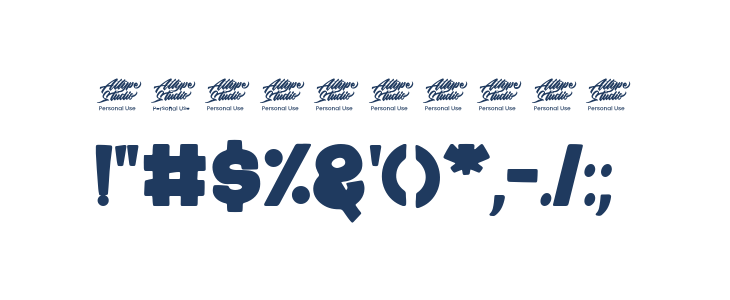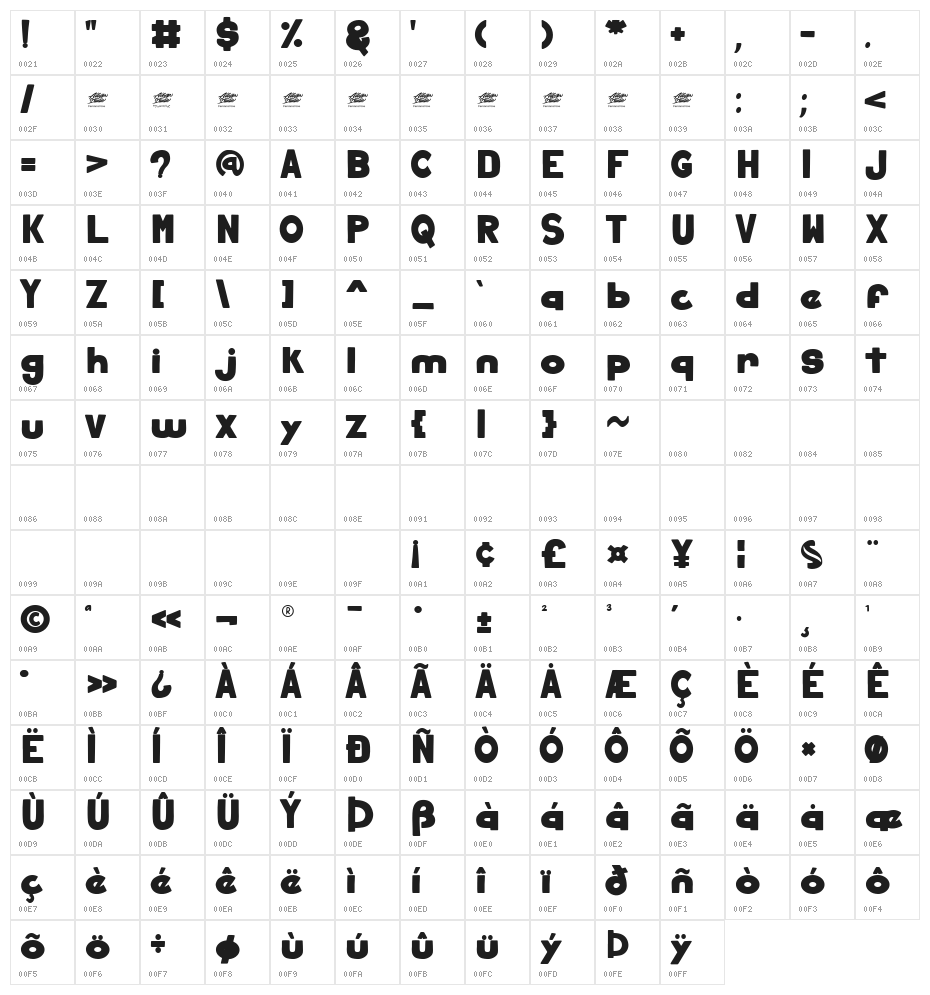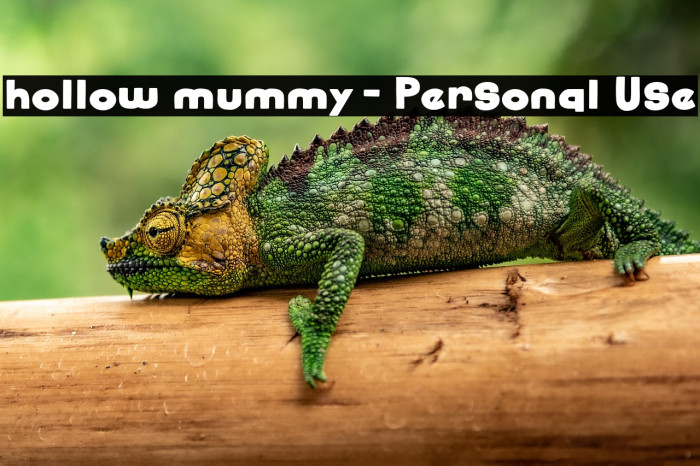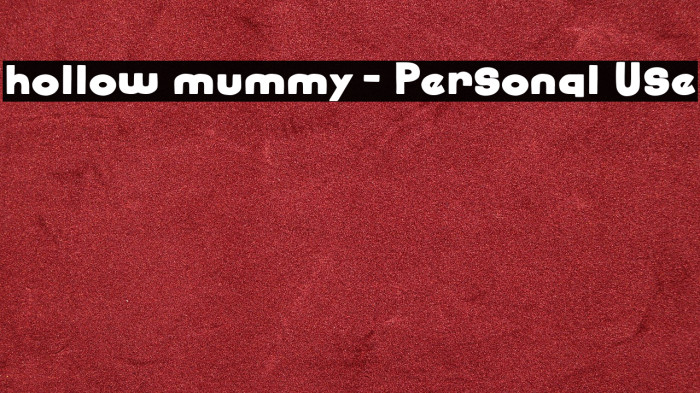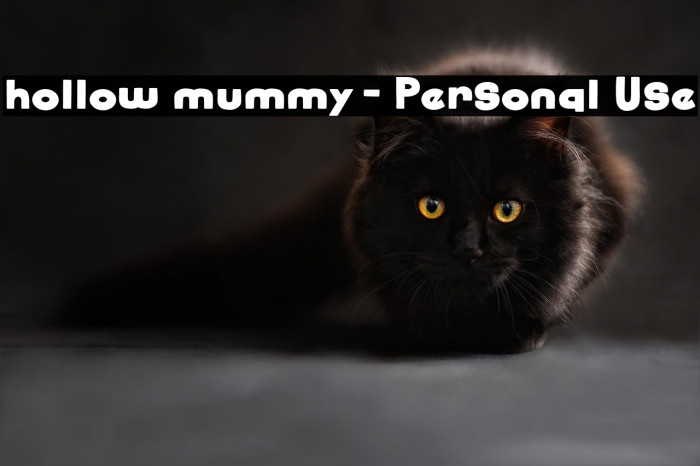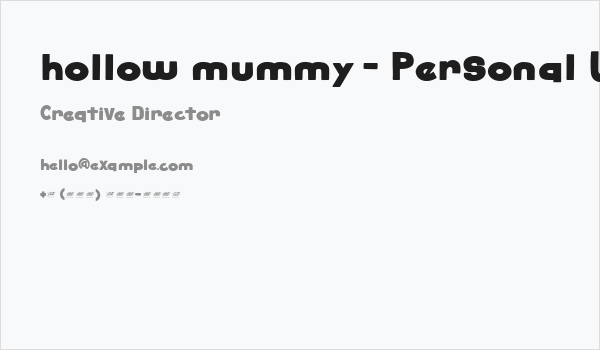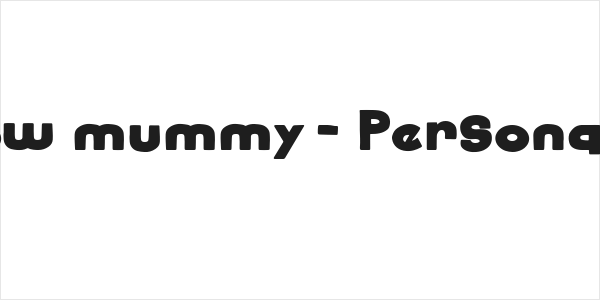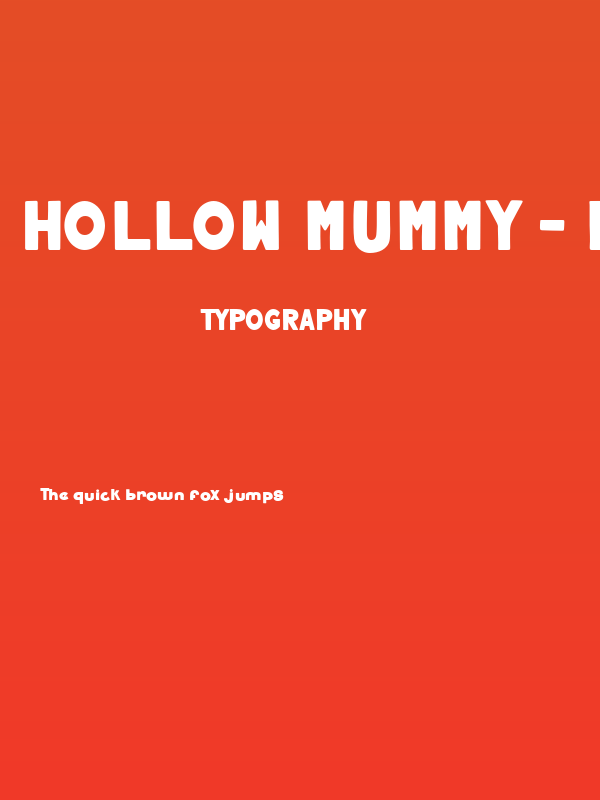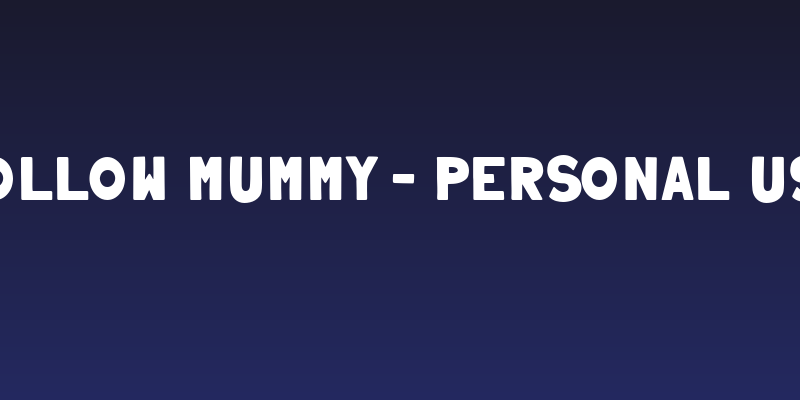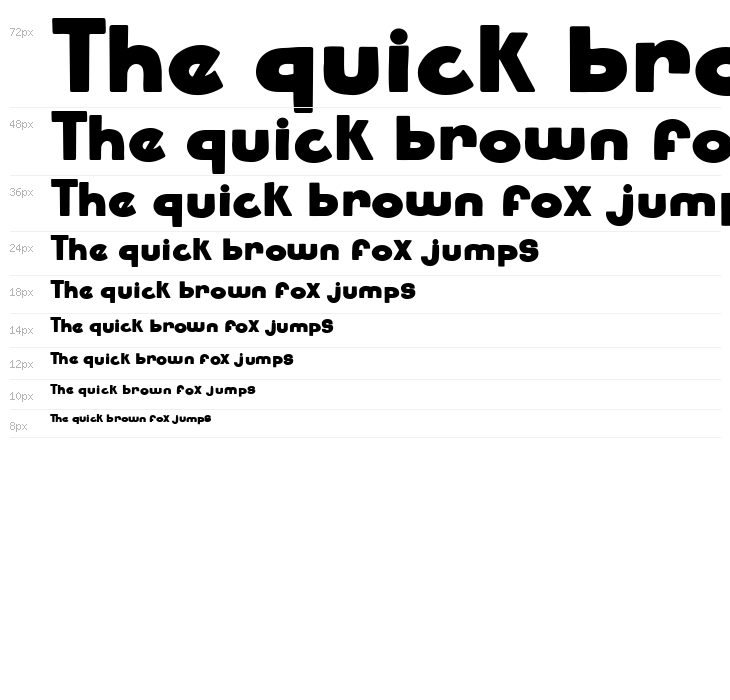
hollow mummy - Personal Use Font
hollow mummy - Personal Use Description
This font features bold, rounded characters with a playful and slightly quirky appearance. The letters have a consistent thickness, giving them a strong presence on the page. The uppercase and lowercase letters maintain a uniform style, with the lowercase letters exhibiting a slightly more whimsical touch. The font includes a full set of numerals and a variety of special characters, making it versatile for different uses. Its bold and rounded design makes it suitable for projects that require a fun and approachable aesthetic. The font's style is reminiscent of retro or vintage themes, adding a touch of nostalgia to any design.
| Proposed Projects | Ideal for children's books, playful branding, retro-themed posters, and eye-catching headlines. |